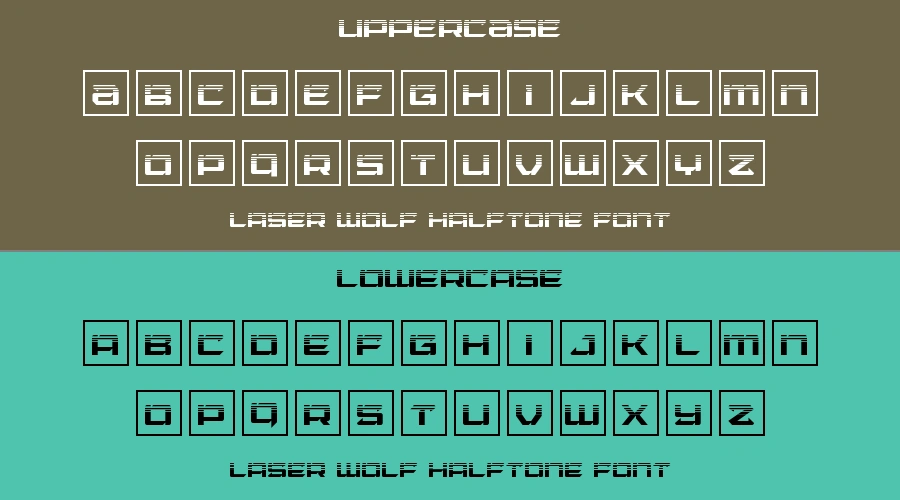
About Laser Wolf Halftone Font
Designed with precision, Laser Wolf Halftone Font merges structural clarity with typographic color in every character. This versatility makes it particularly effective for architectural plans, where consistency and industrial strength directly impact communication quality. Each letterform demonstrates meticulous craftsmanship.
Technical excellence shines through elements like decorative elements and initial forms, enhancing typographic versatility. In headlines settings, Laser Wolf Halftone Font proves its worth through superior headline impact. The thoughtful execution of counter shape and market positioning ensures professional results.